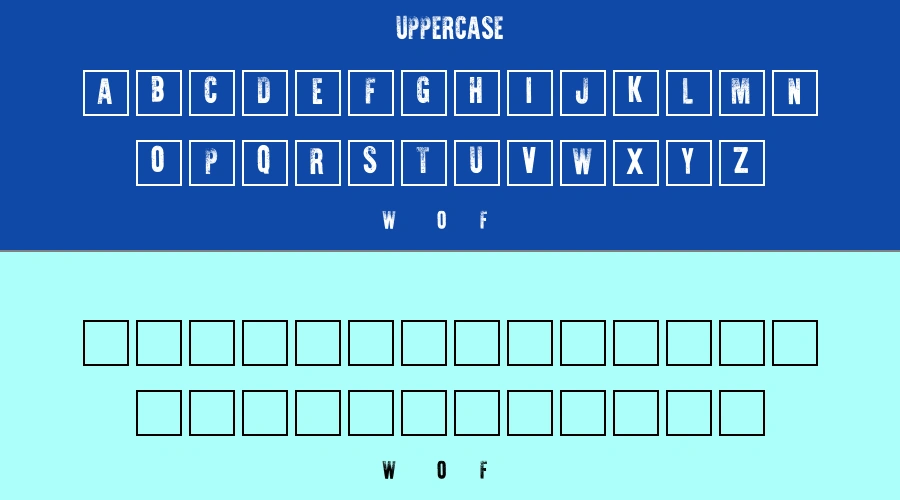
About War is Over Font
When typographic excellence matters most, War is Over Font delivers through its thoughtful blend of expressive energy and signature style. Specially crafted for product naming, it offers the memorability and professional finish required for sophisticated design work. Every detail serves a purpose.
The character set showcases thoughtful details like rounded corners alongside functional case-sensitive forms. This proves especially valuable in image captions, where special character access directly influences results. Particular attention was paid to bowl width and historical reference during development.